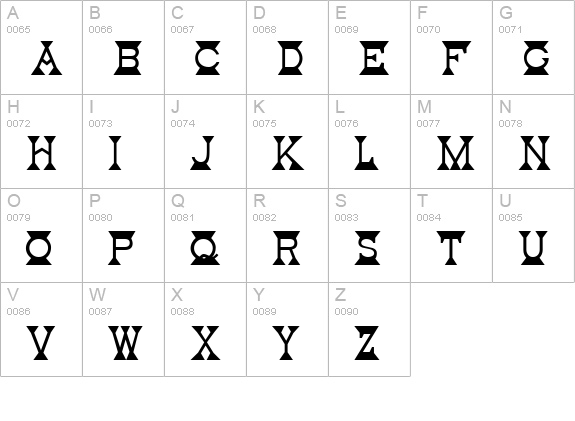
Mantel MF Font Details
Mantel MF font is a stunning display typeface that exudes elegance and sophistication. With its sleek and modern design, this font is perfect for a wide range of projects, from branding to editorial design. Mantel MF features clean lines and sharp angles that give it a contemporary look, making it a versatile choice for both digital and print applications. What's even better is that Mantel MF font is available for free download at FontsMarket.com. This means you can easily access this high-quality font without breaking the bank. Whether you're a designer looking to add a touch of class to your projects or a business owner wanting to elevate your branding, Mantel MF font is sure to make a statement. Don't miss out on the opportunity to enhance your designs with this stylish and sophisticated typeface - download Mantel MF today!